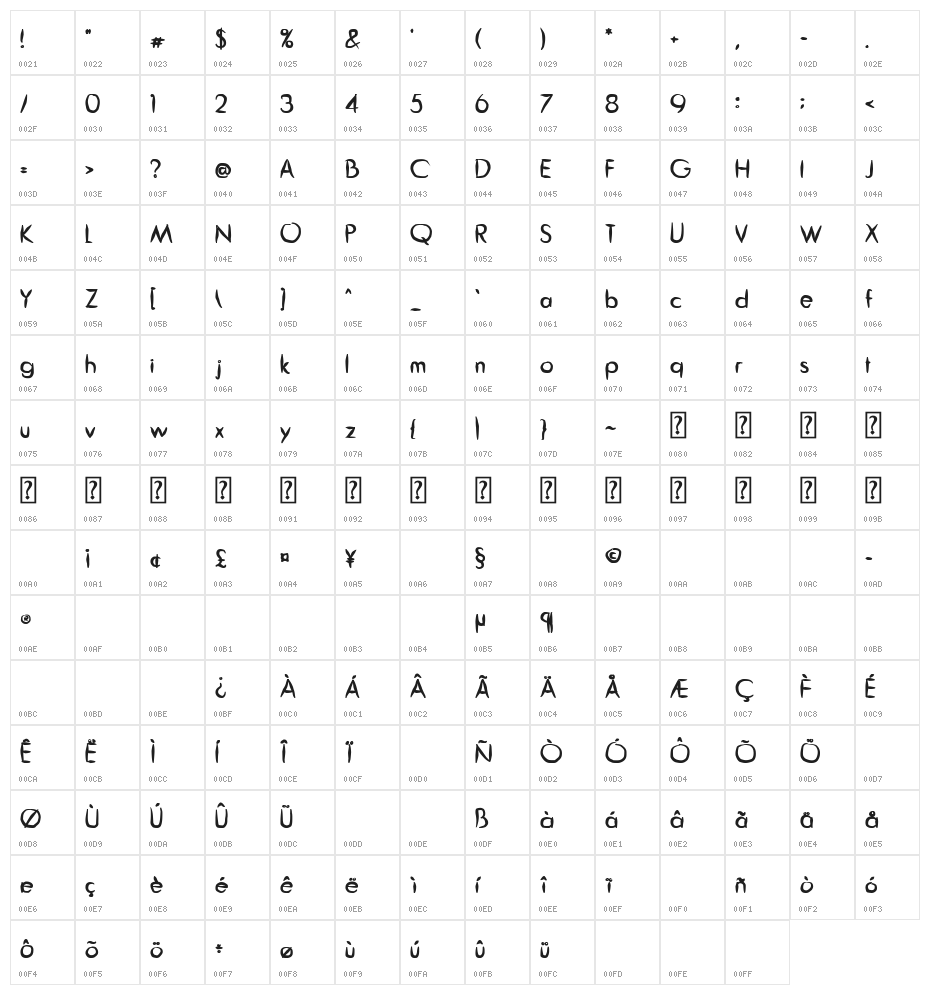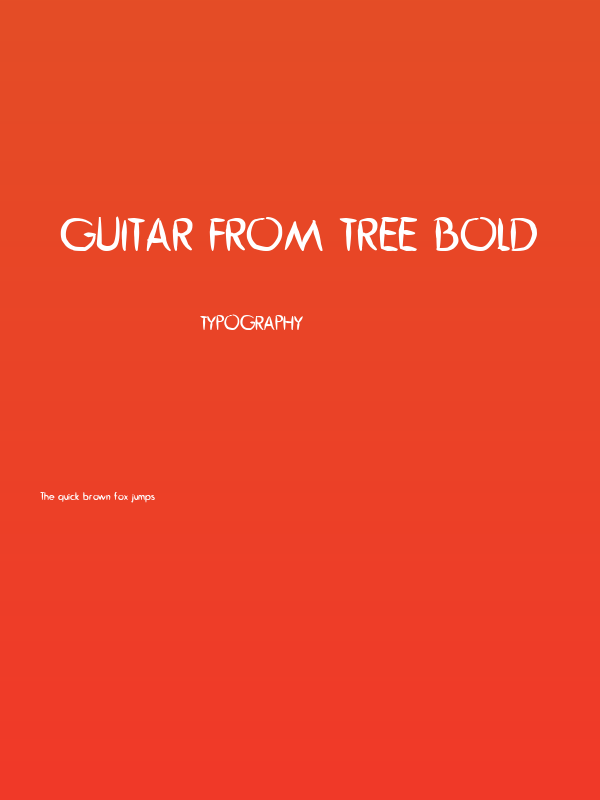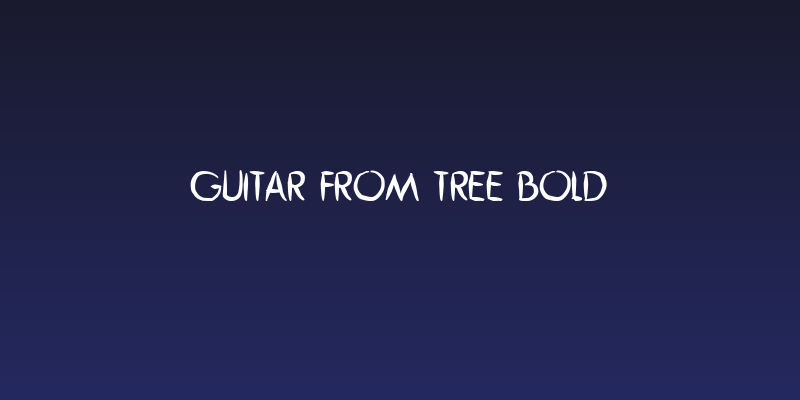
Guitar from Tree Bold Font
Guitar from Tree Bold Description
This font features a bold and playful design with a handwritten style that exudes a sense of creativity and spontaneity. The characters have a slightly irregular shape, giving them a unique and organic feel. The strokes are thick and consistent, providing a strong visual impact. The uppercase and lowercase letters maintain a cohesive look, while the numerals and special characters complement the overall style. The font's whimsical nature makes it suitable for projects that require a touch of personality and flair.
GUITAR-FROM-TREE-BOLD UPPERCASE
GUITAR-FROM-TREE-BOLD LOWERCASE
GUITAR-FROM-TREE-BOLD OTHER CHARS
| Proposed Projects | Ideal for children's book covers, creative posters, playful branding, and artistic invitations. |